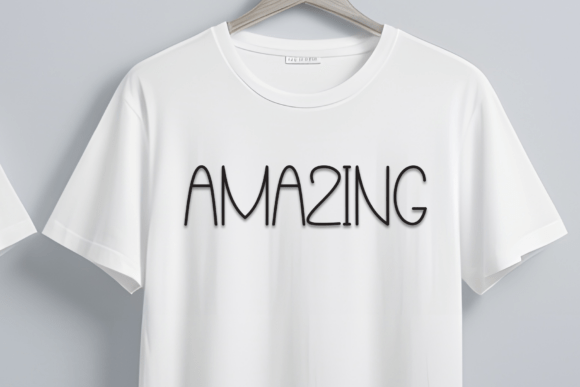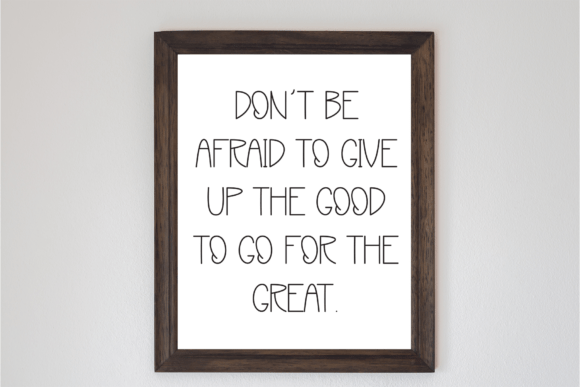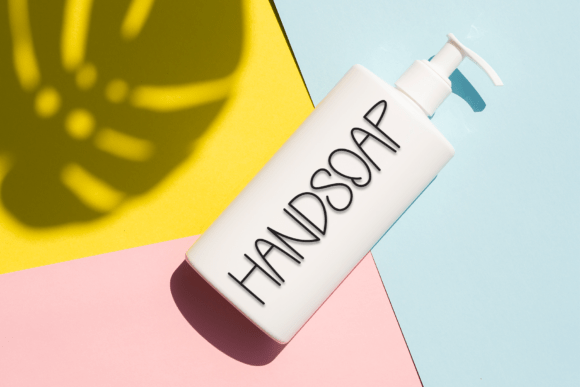
Introduction to Monthly Christmas Font
As designers, we’ve all been there – staring at a blank canvas, desperate for the perfect font to bring our creative project to life. The search is over, and we’re excited to introduce you to the Monthly Christmas Font, a game-changing design resource that’s about to make your life easier.
With its modern simplicity and playful vibe, this font is the perfect addition to any project. Whether you’re working on a poster, branding, packaging, or social media graphics, the Monthly Christmas Font adds a fresh and friendly touch that’s sure to captivate your audience. And the best part? It’s available for free download, making it a high-quality design resource that won’t break the bank.
Imagine having a font that’s not only stylish but also easy to read, with clean shapes and soft edges that make it perfect for transparent backgrounds. That’s exactly what the Monthly Christmas Font offers – a versatile character that delivers both readability and personality, making it a valuable asset for any designer.
Key Features of Monthly Christmas Font
Honest Review: Monthly Christmas Font
As a designer, I’m always on the lookout for high-quality design resources to elevate my creative projects. The Monthly Christmas Font is one such find that caught my eye. ✨
Here’s what I like about it:
- High-quality font with crisp and clean lines
- Transparent background, making it easy to use with any design
- Perfect for festive designs, packaging, and invitations
While the font is great, there are a few limitations to keep in mind:
- Only available in a limited number of font styles (e.g., bold, regular, italic)
- No support for special characters or accents
Overall, I’m impressed with the Monthly Christmas Font. It’s a great addition to any designer’s toolkit, especially during the holiday season. With a little creativity, you can use this font to create stunning designs that shine. Just be aware of its limitations, and you’ll be golden.
Getting the Most Out of It
To get the most out of the Monthly Christmas Font, use it in creative projects such as holiday greeting cards, party invitations, and social media graphics. You can also use it to add a festive touch to your blog posts, newsletters, and websites.
The Monthly Christmas Font is perfect for any holiday-themed project. Some common use cases include:
- Creating holiday greeting cards and gift tags
- Designing party invitations and decorations
- Adding a festive touch to social media graphics and blog posts
- Creating holiday-themed email newsletters and websites